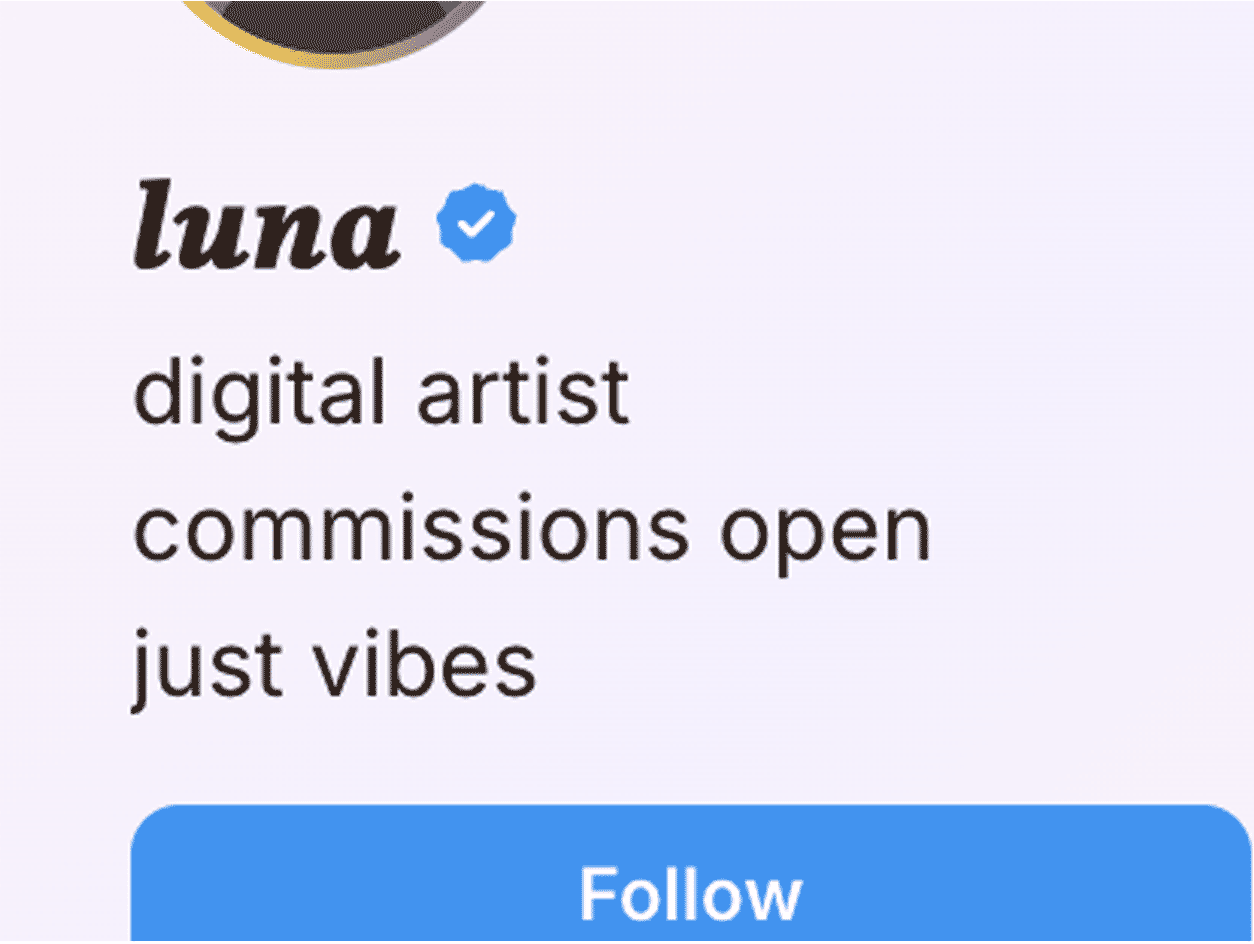
About 27 of these are real, complete alphabets. The rest are assembled from lookalike letters borrowed from other writing systems. When a site advertises 300 styles, it is counting these same alphabets wearing different decorations.
What a font generator actually does
It does not change your font. It changes your letters.
Unicode is the list every device agrees on for what a character is. It holds about 150,000 of them. In 2001 the Consortium added a block called Mathematical Alphanumeric Symbols, because mathematicians needed a bold A that was distinct from a normal A. In an equation those mean different things, and encoding the difference as styling would lose it the moment the text was copied. So they were encoded as separate characters instead. Around a thousand of them, purely for maths papers.
Nobody uses them for maths papers. They use them for Instagram bios. The letter a is U+0061. Script 𝓪 is U+1D4EA. They are as unrelated as a and é and 中, and a font generator is a lookup table between them. That is the whole product, and it is why the result survives a paste into an app whose code you do not control. Instagram is not loading a typeface you supplied. It is drawing characters, and these are characters.
Handles will never work
Bios, display names, nicknames and posts all accept these. The @handle does not, on any platform, and no tool can change that. Instagram, TikTok, X, Discord, YouTube and Roblox all restrict handles to plain characters. Changing one is possible but rationed: Snapchat allows it once a year and Roblox charges 1,000 Robux for it. If a generator implies your handle can be styled it is wasting your afternoon.
Nobody can search for you
Search treats 𝓳 and j as unrelated characters, on the platform and in Google alike. A styled name will not be found by anyone typing it normally. Screen readers fare worse: most announce styled text character by character with full Unicode names, or skip it in silence. If the words carry meaning rather than decoration, leave them plain.
None of it can be printed
Frequently asked questions
Instagram uses its own single system font that you cannot change, so this tool does not touch it. Instead it swaps your letters for different letters. Unicode contains complete duplicate alphabets that were added in 2001 so mathematicians could write equations without images. A script ? is not a styled a. It is its own character with its own code point, the same way é or 中 or an emoji is its own character. Nothing about the font is touched, which is exactly why it survives a copy and paste into an app you do not control.
Instagram will not load a typeface you supply. It draws whatever characters you give it using its own font. Since these are characters rather than styling, there is nothing for Instagram to strip. It sees a valid character and draws it, the same way it draws Japanese, Arabic and emoji.
Not the @handle. Every platform gives you two names: the @handle you log in and get found by, and the display name people read on your profile. Handles only take plain text, no fancy fonts, so a styled one will not save. Display names, bios, nicknames and posts do take these styles, and that is what this tool is for.
Two reasons. Either your device has no font installed covering those characters, which is common with runic, Gothic and Coptic, or the style has genuine holes in Unicode. Small caps has no q or x, because it was built for phoneticians who had no use for either. Superscript has no q. Subscript is missing nine letters. This page tests your device directly and marks any style it cannot draw, and flags the missing letters in your specific text.
No, and this matters more than most people realise. Search treats ? and j as unrelated characters, on the platform and in Google. A styled name will not be found by someone typing it normally. If you are building anything you want discovered, keep the name plain and style something else.